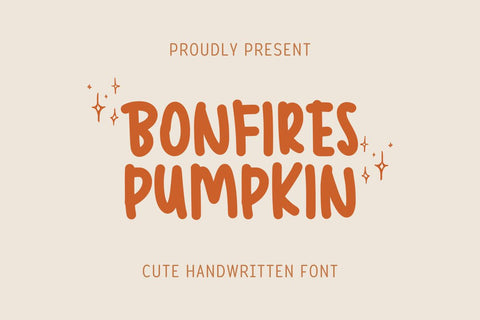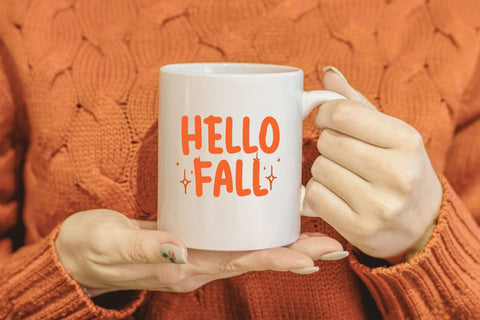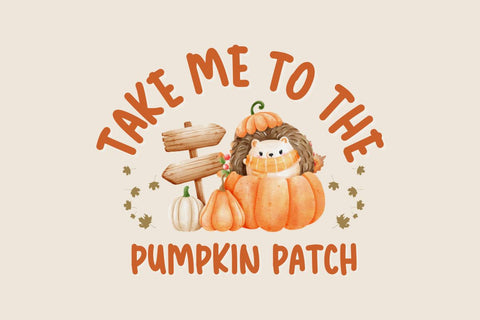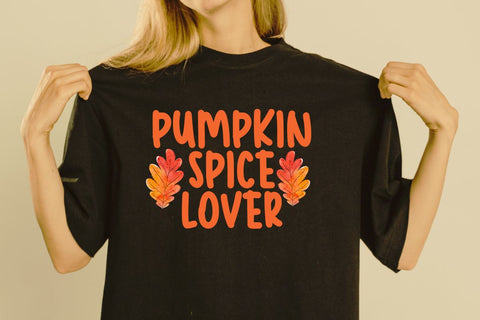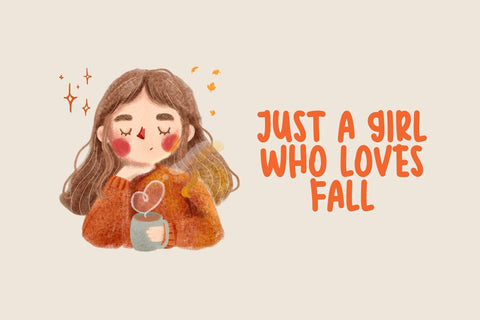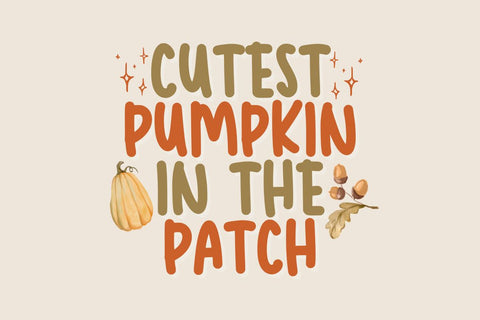
Bonfires Pumpkin - Cute Handwritten Font
Hi, Introducing Bonfires Pumpkin - Cute Handwritten Font
A Cute Handwritten Font with a cute and fun style. This font is cool for mugs, t-shirts, greeting cards, quotes, poster stickers, etc